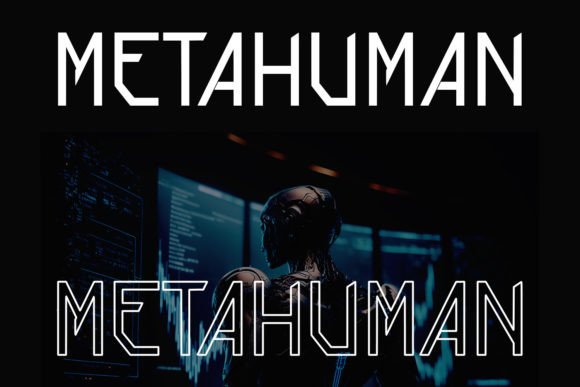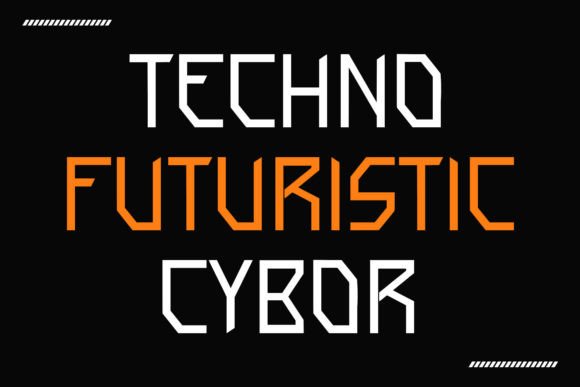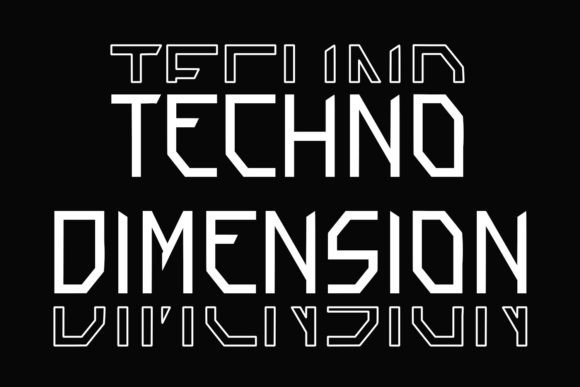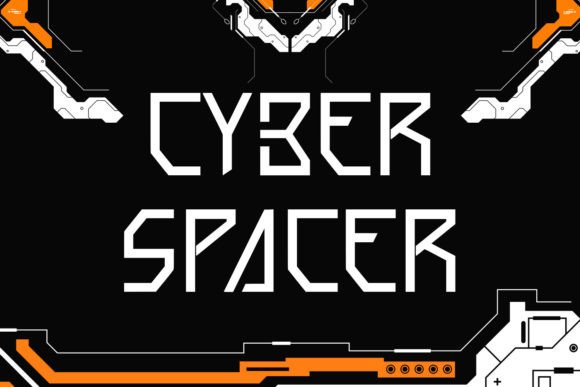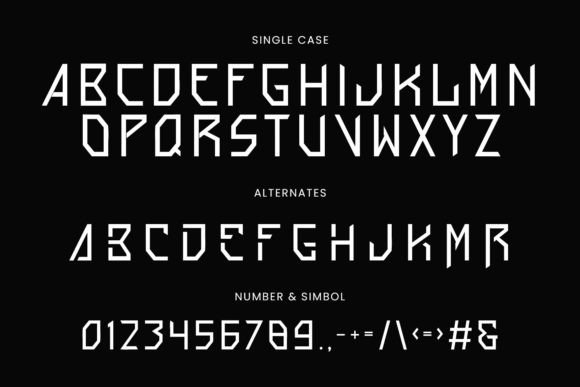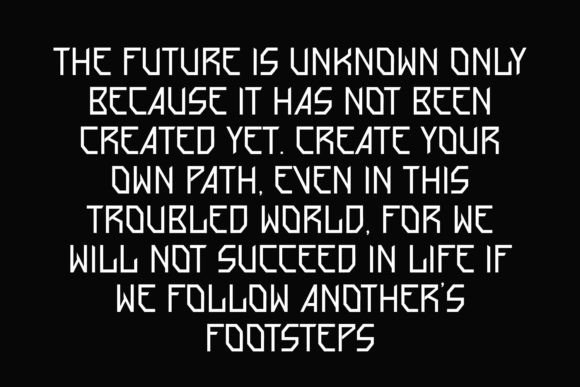
Introduction to Mecha Corps Font
Mecha Corps futuristic sans serif font.
Heavy stroke, fun character with a bit of ligatures To give you an extra creative work.
Key Features of Mecha Corps Font